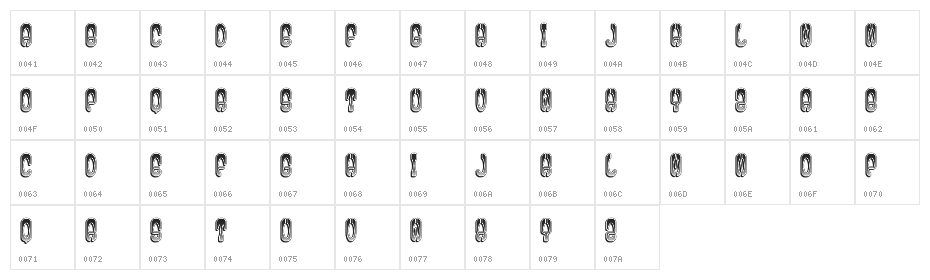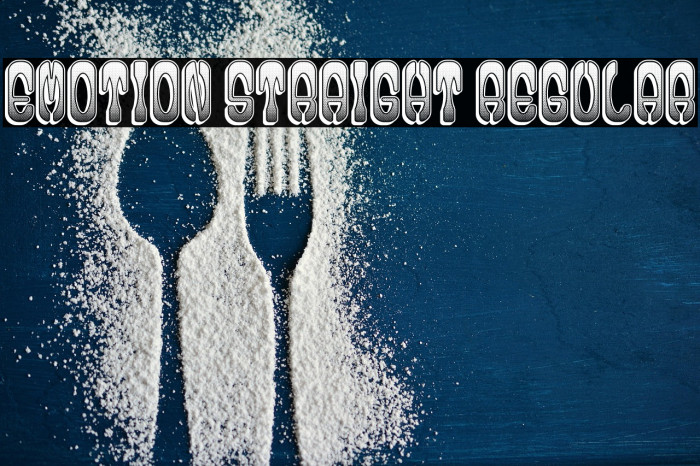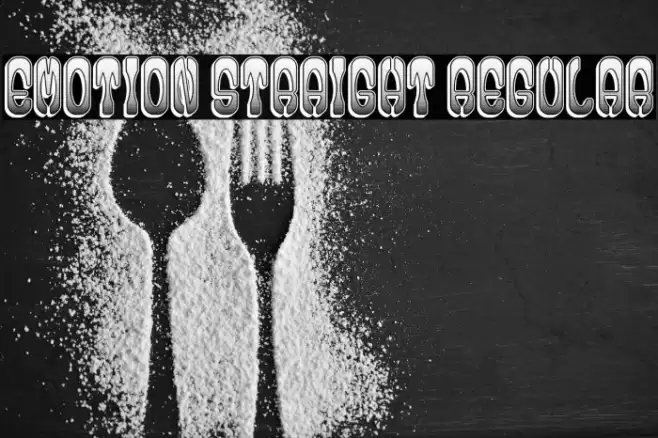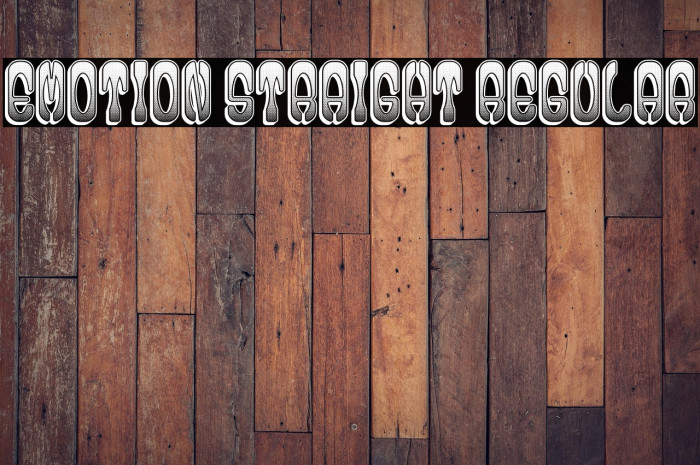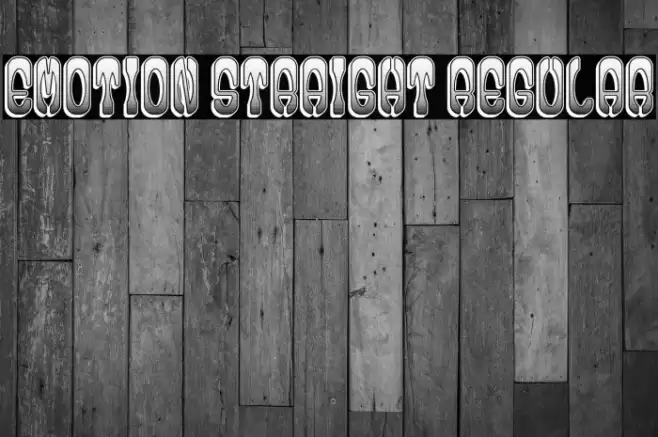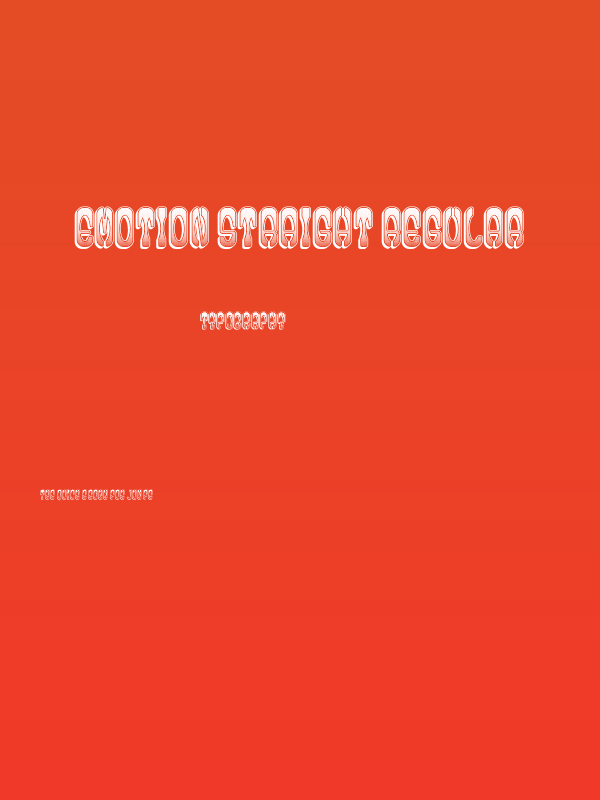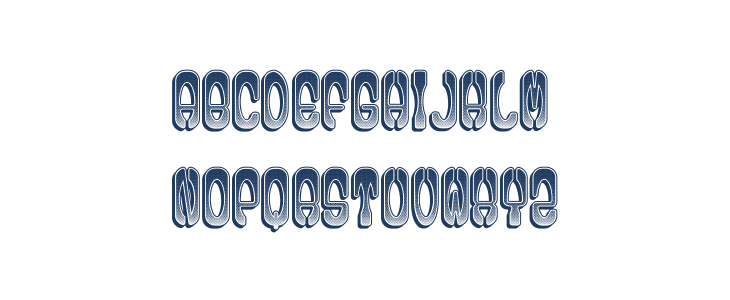
Emotion Straight Regular Font
Emotion Straight Regular Description
This font features a bold and striking design with a three-dimensional effect that gives each character a sense of depth and volume. The letters are outlined with a thick black border, and the interior is filled with a gradient pattern that enhances the 3D illusion. The style is highly decorative, making it ideal for eye-catching headlines or display purposes. The uppercase letters are uniform in height, and the overall design is consistent across the alphabet. The font's unique aesthetic makes it suitable for projects that require a strong visual impact.
Proposed ProjectsIdeal for posters, logos, event invitations, and any design needing a bold statement.